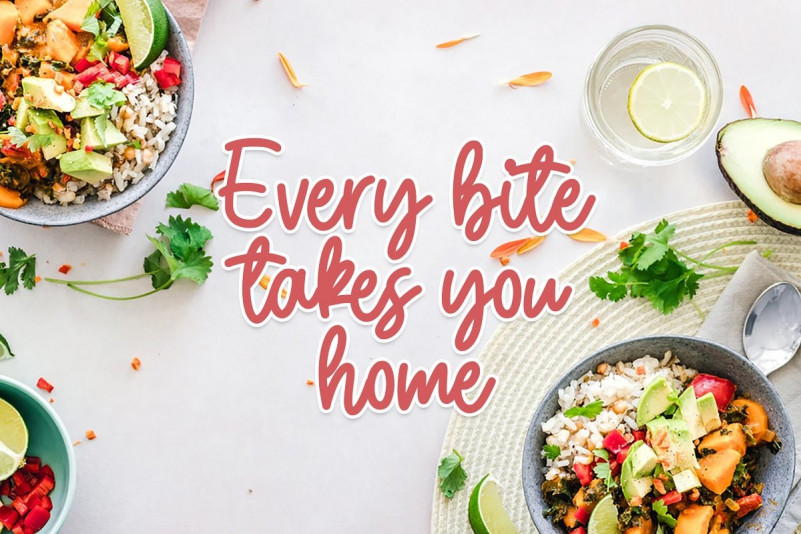
Weatpoint Script Font
This is a layered font inspired by the joyful world of colorful children. It’s ideal for the design of children’s printed products. Weatpoint Font is designed and shared by StringLabs. This font is perfect for those of you who want the style of children. Fonts Made specifically for purposes such as: Kindergarten, Birthday, Kid, Cartoon, Comic, Children, and Playground. This Font Template contains Modern, Elegant, Creative, Professional and Unique Concept.